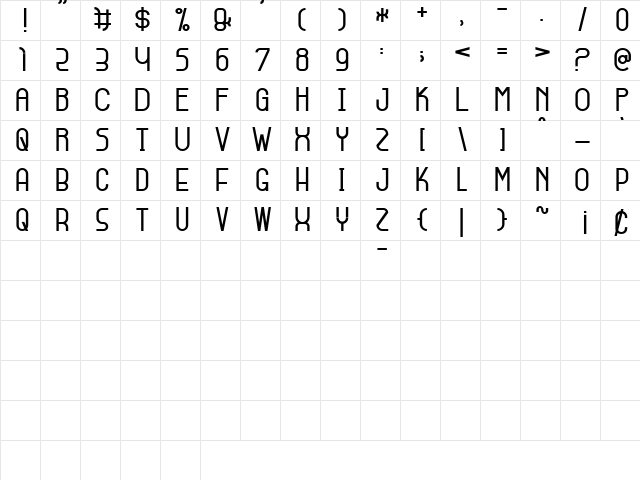
Complete Skinny Buttom Regular glyph index. Displaying only characters natively supported by Skinny Buttom Regular font.
Skinny Buttom is a composed and adaptable typeface that performs quietly and consistently across a wide range of design contexts.